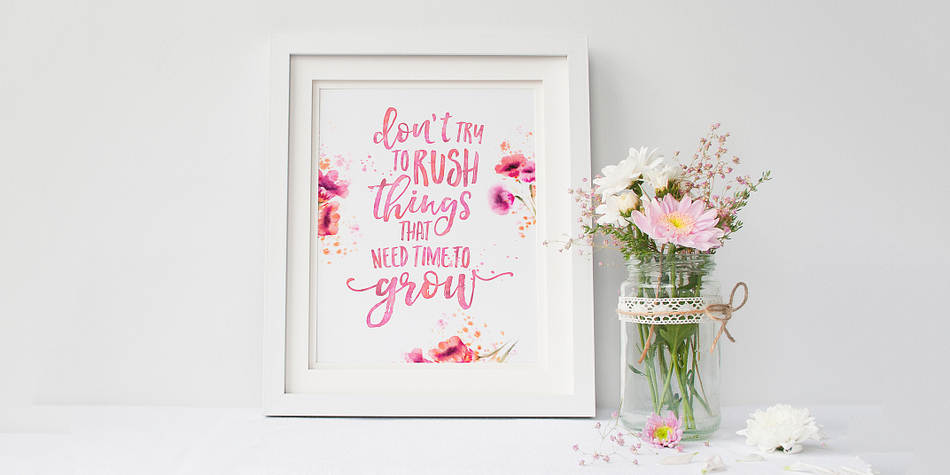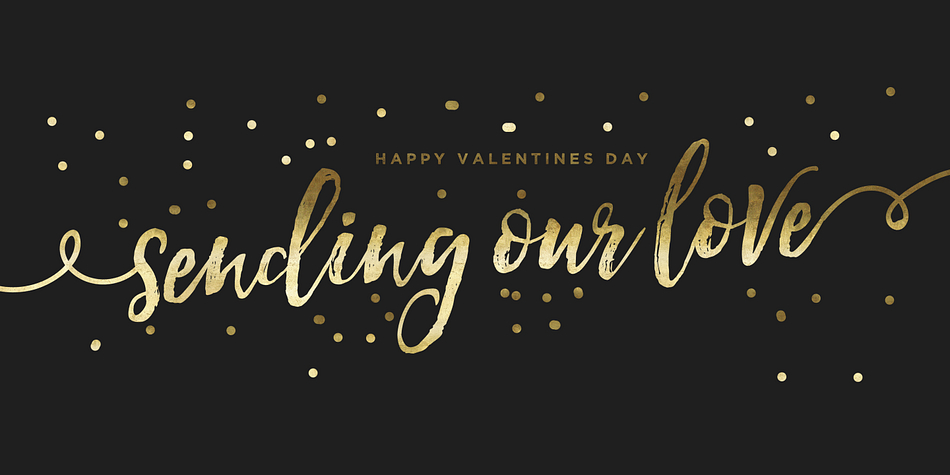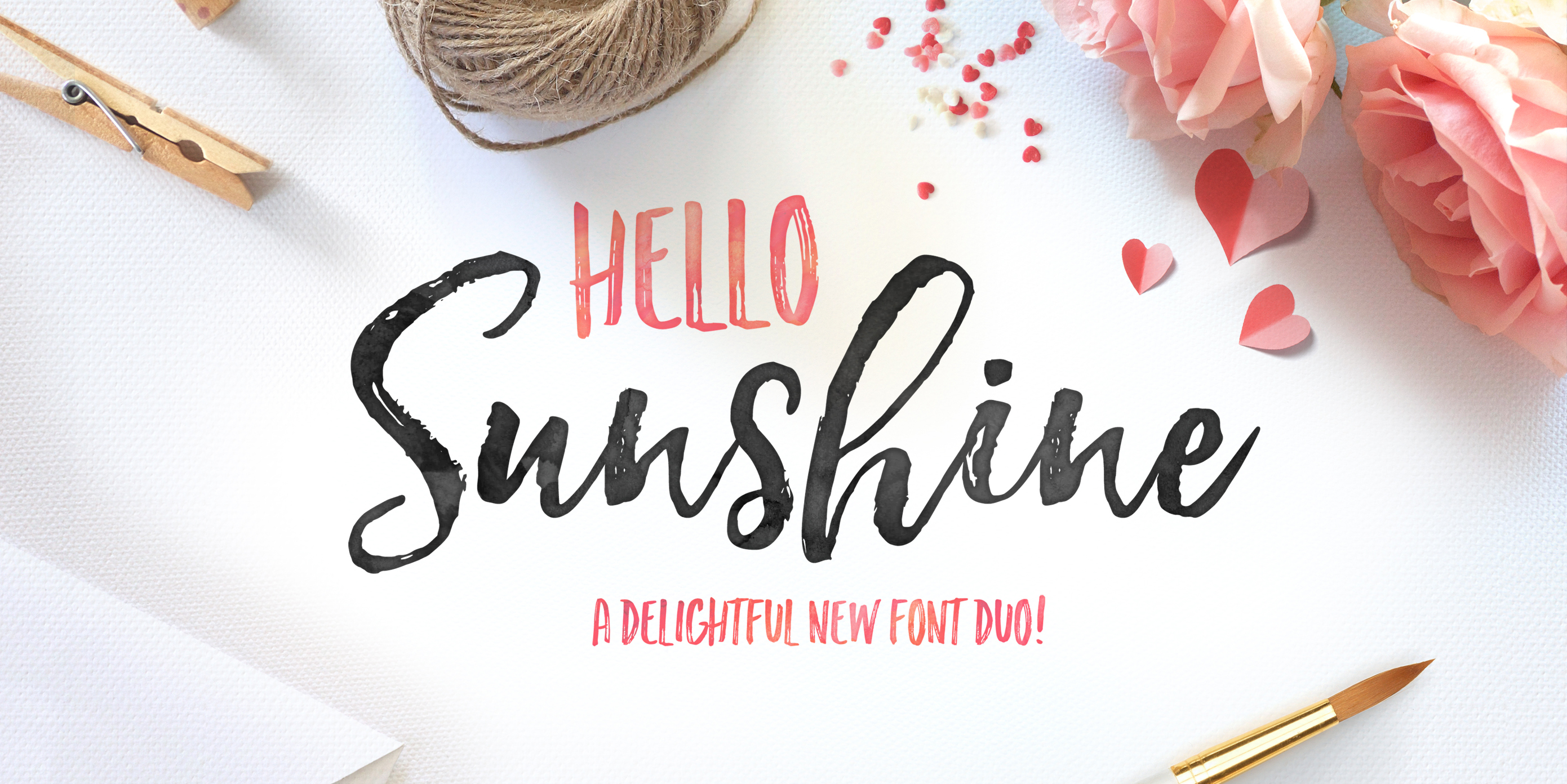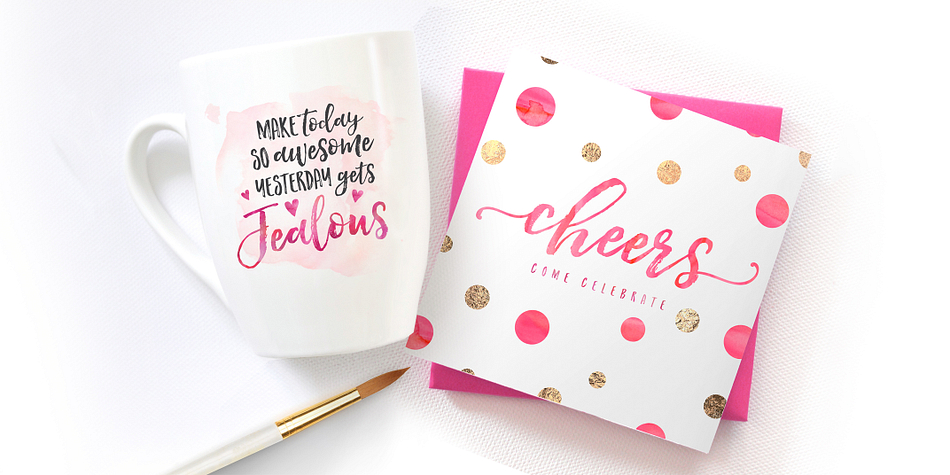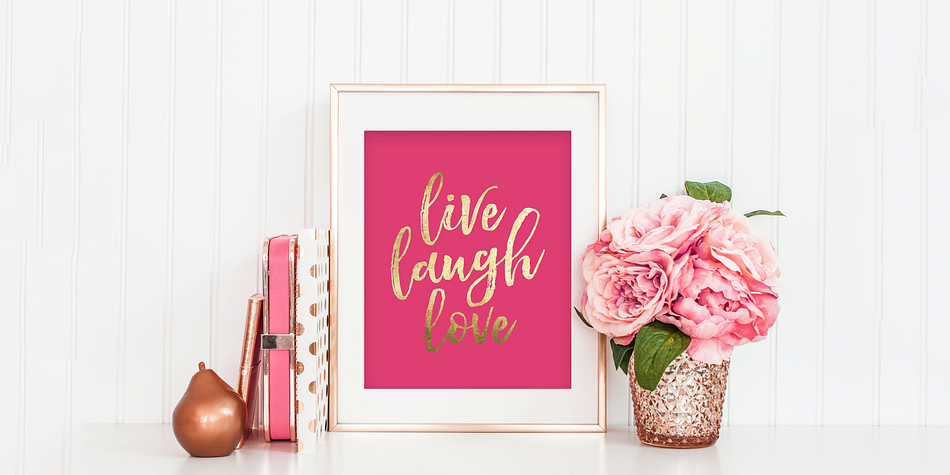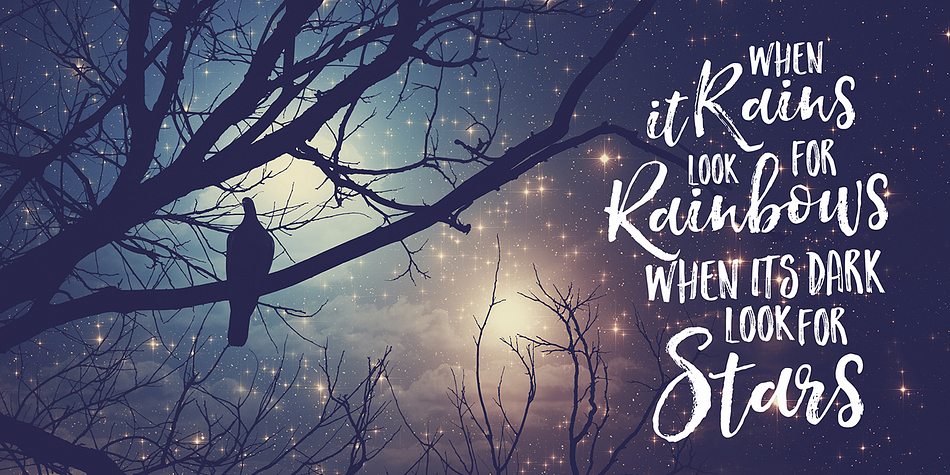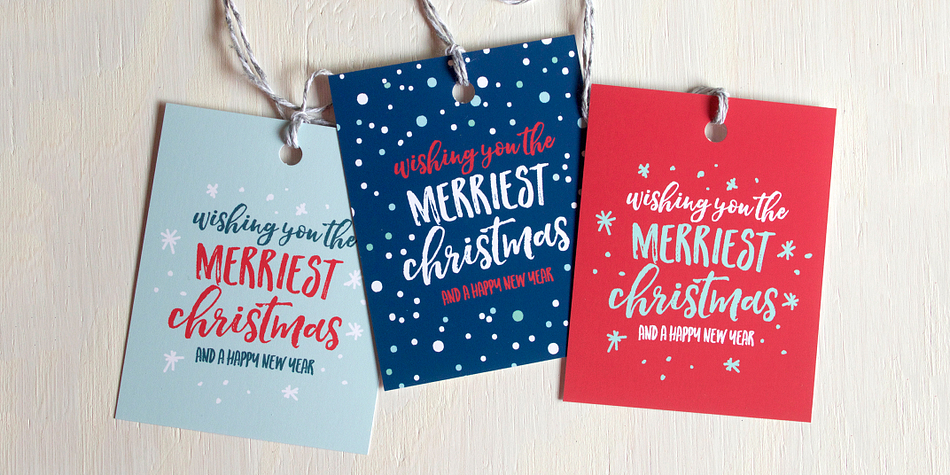
Designed by Nicky Laatz, Hello Sunshine is a dingbat, hand display and modern calligraphy font family. This typeface has four styles and was published by Nicky Laatz.
Hello Sunshine Font duo is a textured brush script set with beautifully brushed letters and a sweet nature. It includes Stylistic Alternates for all lowercase letters, and automatic ligatures to add some authenticity to your designs. It also comes with sweet little ornaments which compliment the nature of the font perfectly.
Together or apart, Hello Sunshine fonts can be used to create an eclectic range of designs with vastly different feels. Happy designing with Hello Sunshine!
Foundry | Nicky Laatz |
Styles | Hand Display, Modern Calligraphy, Dingbat |
Designer | Nicky Laatz |